1. Scaramella font
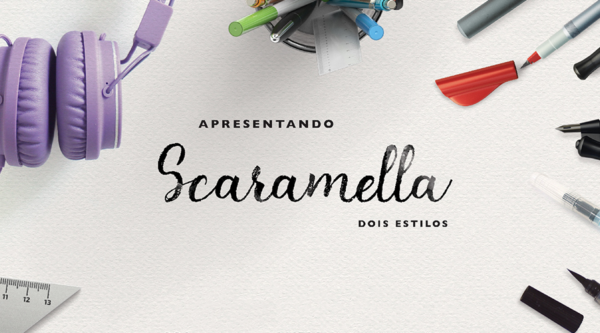
2. Bubulat Font
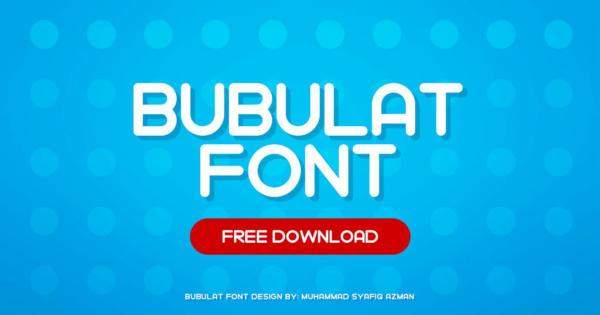
3. Skyer Font
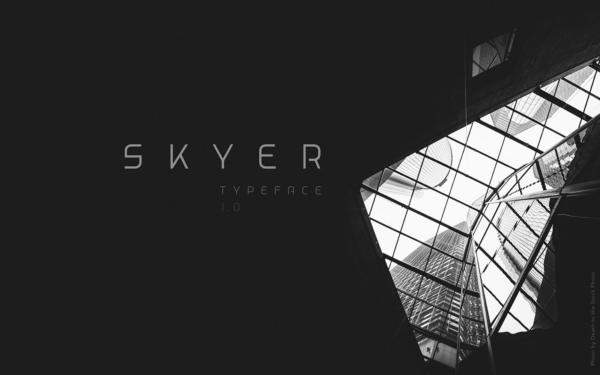
4. Evergreen Font
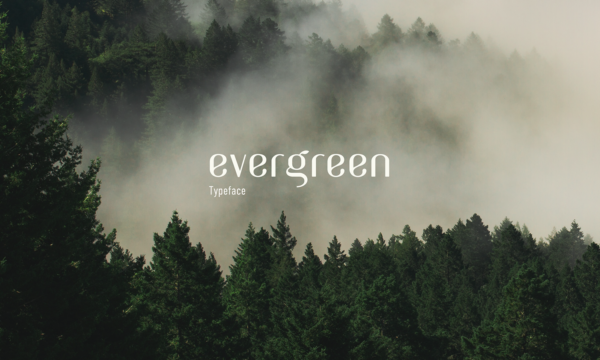
5. Sawage Font
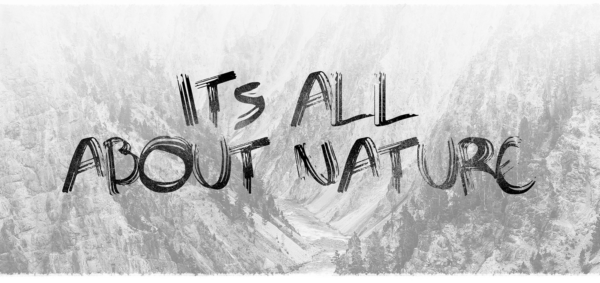
6. Lost Childhood Font
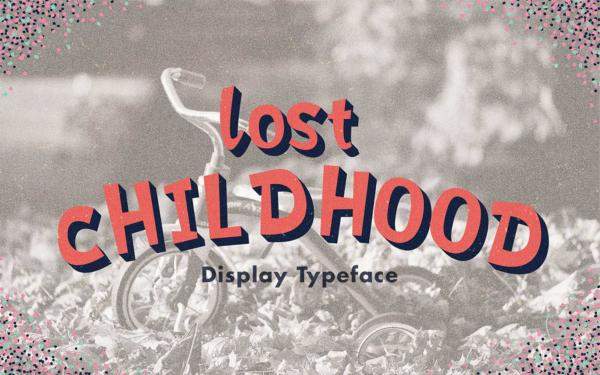
7. Atiba Font
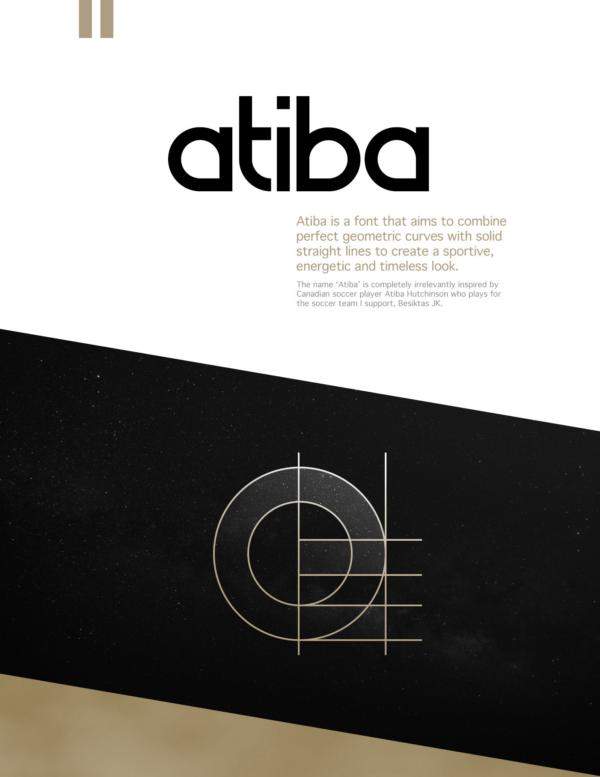
8. Avenue X Font
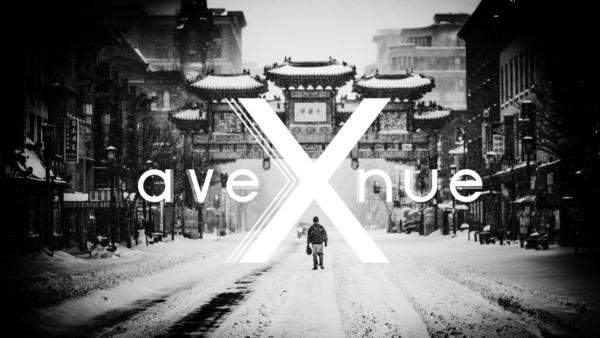
9. QUBO Font
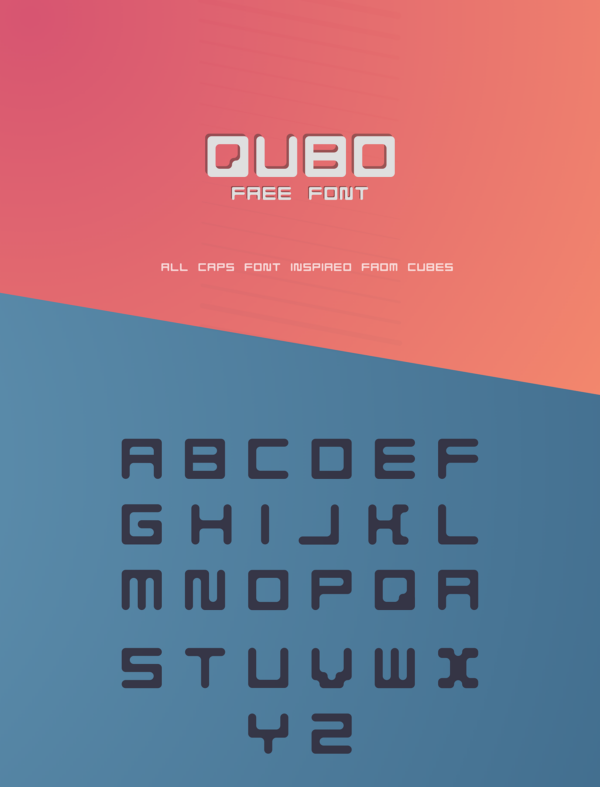
10. Hentges Font
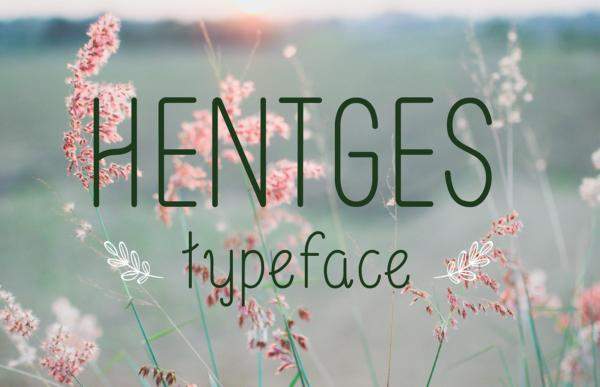
11. Speck Display Font
12. KATONA Font
13. BUBU Font
14. Luciano Font
15. Tag Type Font
16. Bastell font
17. ZVIRO Font
18. Blink font
19. Averoster font
20. Little Creator font
21. Шрифт Bajern font
23. Capsule X Pro font
24. REACTION Font
25. Little Wizzy font